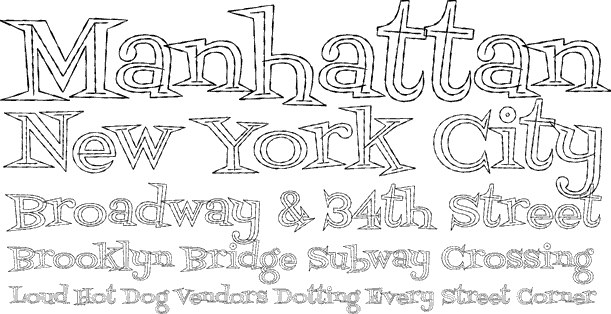
Fontdinerdotcom Jazz Light
About Fontdinerdotcom Jazz Light
So, you dig the smooth sounds of Donald Fagan while cruisin\’ up the Intracoastal? Sounds like you\’re a fan of Light Jazz! Don\’t let the Florida heat bother you, grab a cup of cool and chill out.